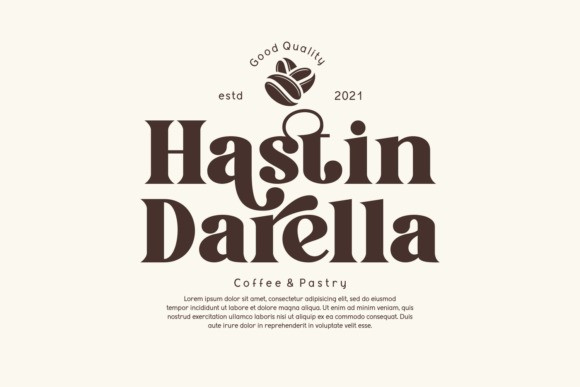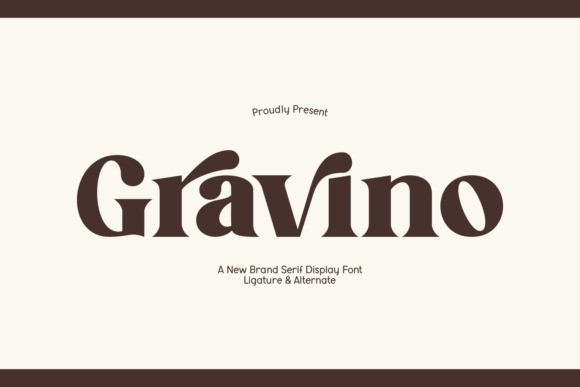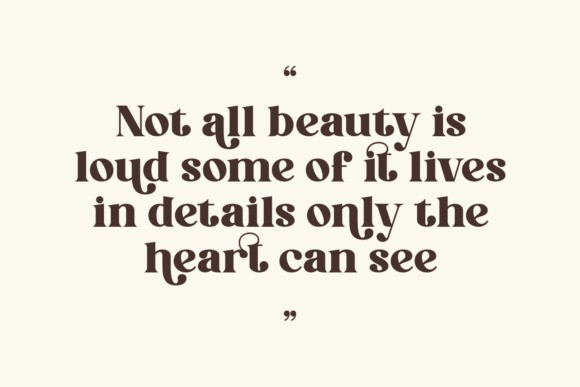
Gravino Font
Gravino Font a new brand serif display font. The presentation highlights that the font includes special ligature and alternate characters, and its soft, chunky letterforms give it a friendly yet impactful